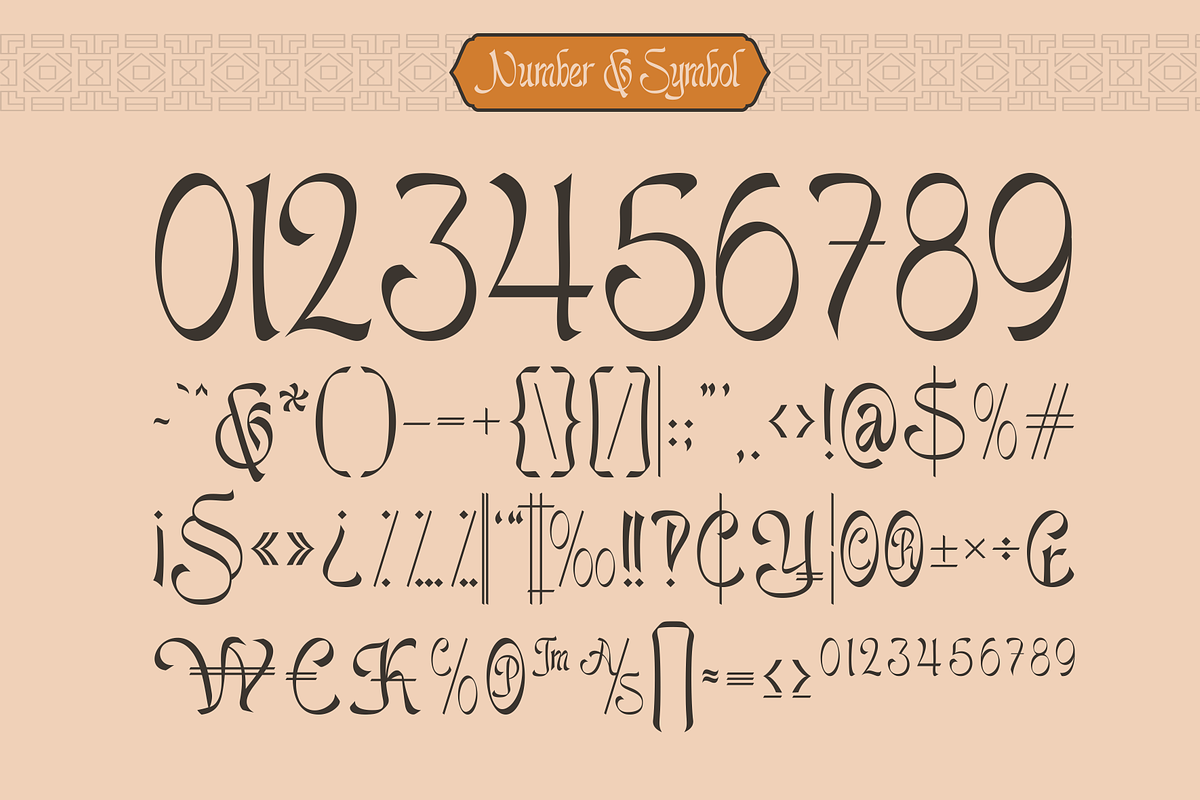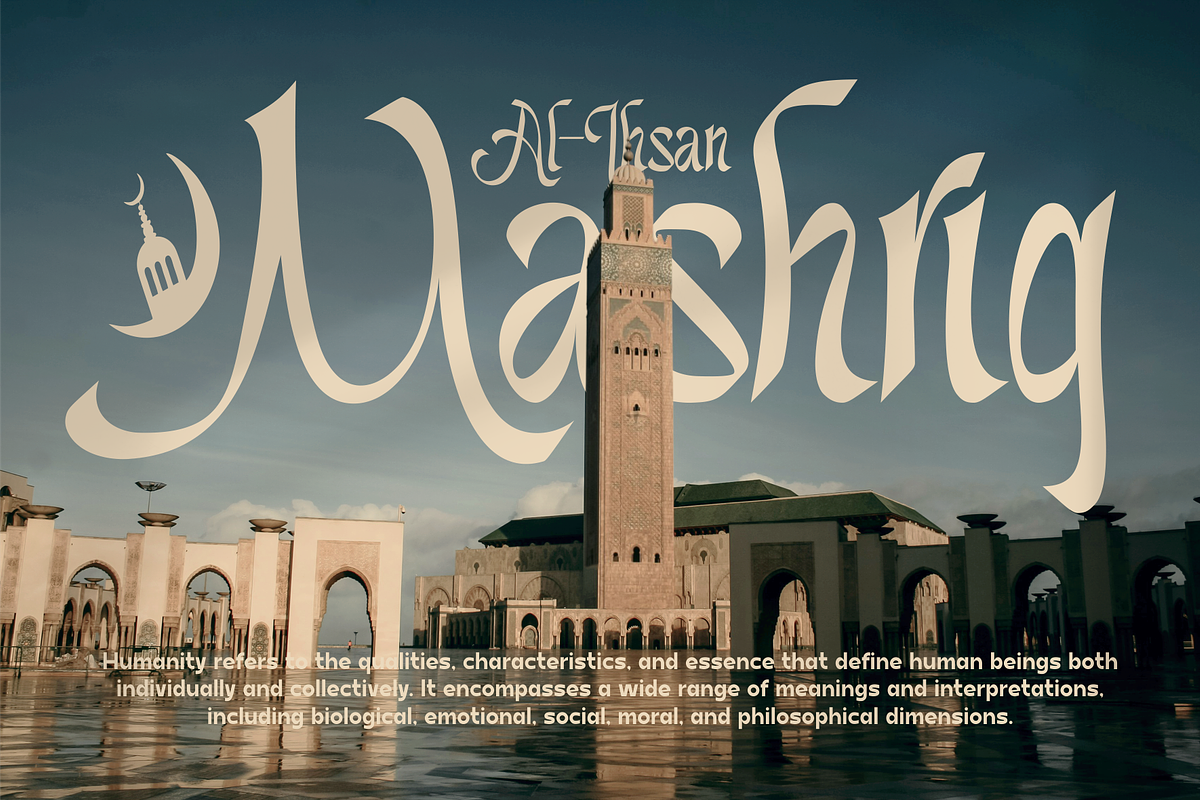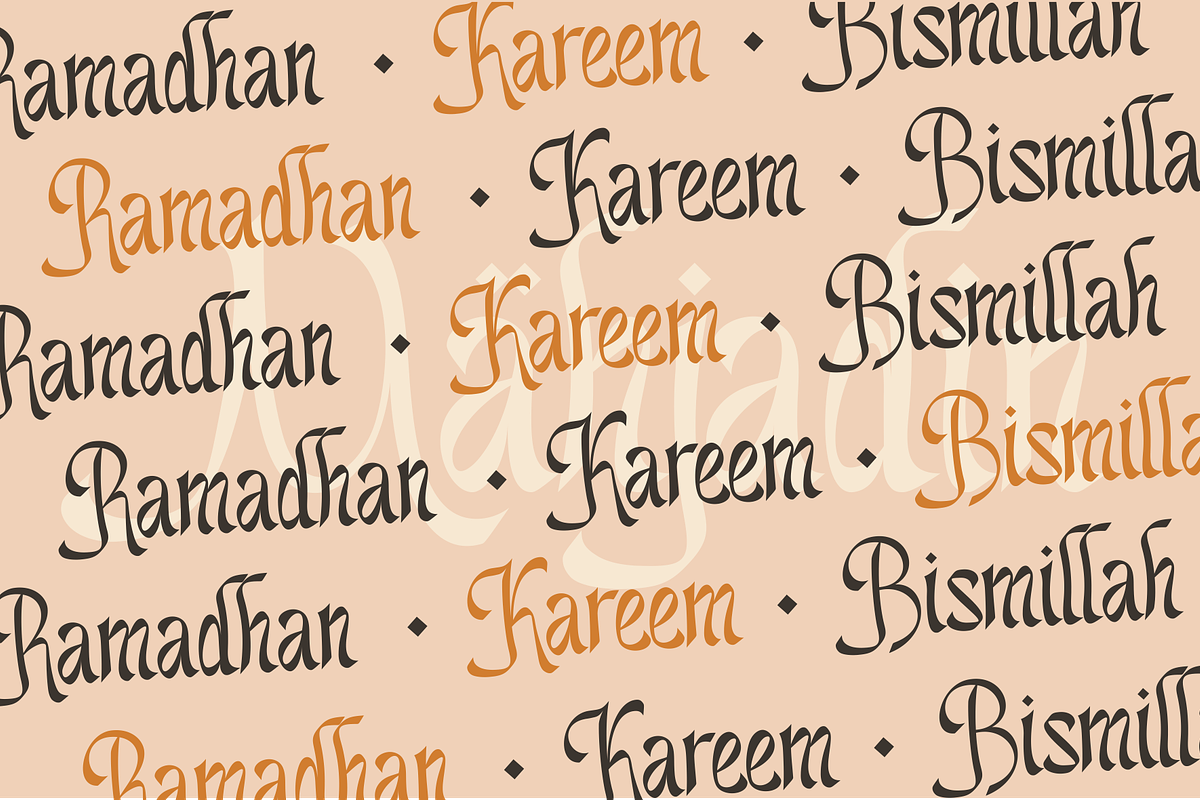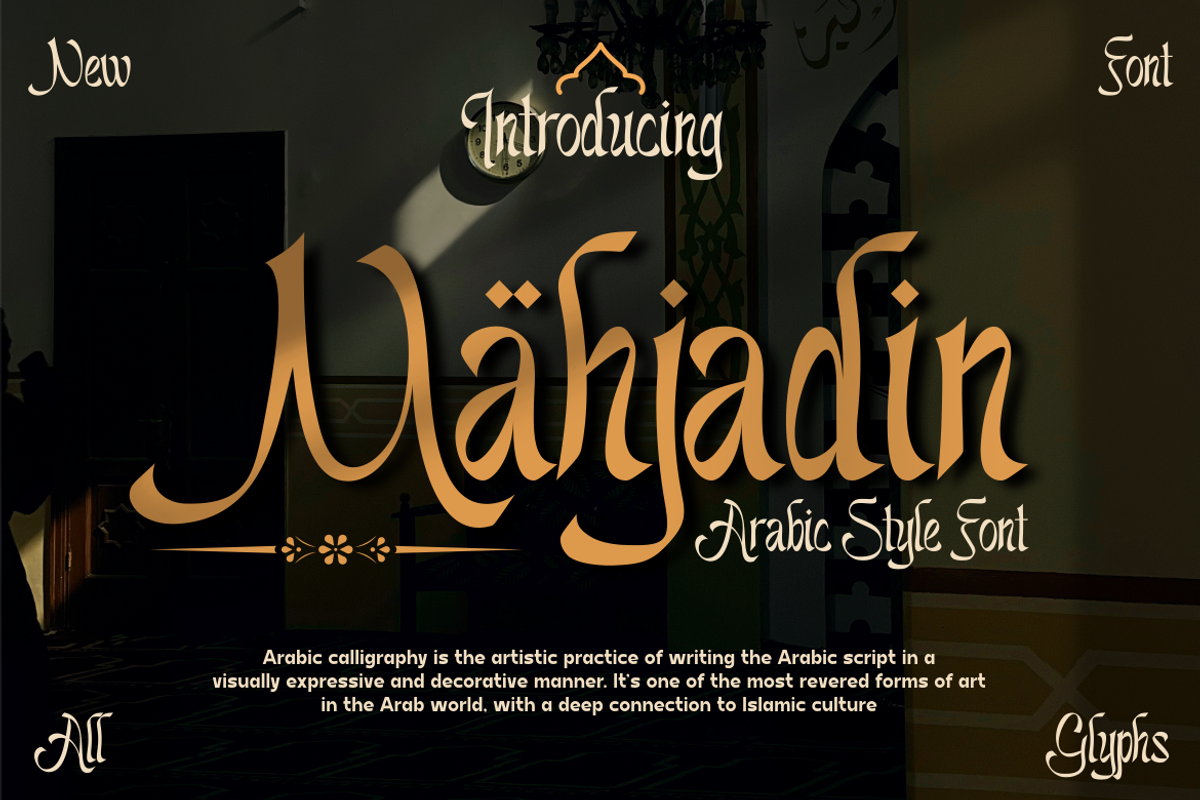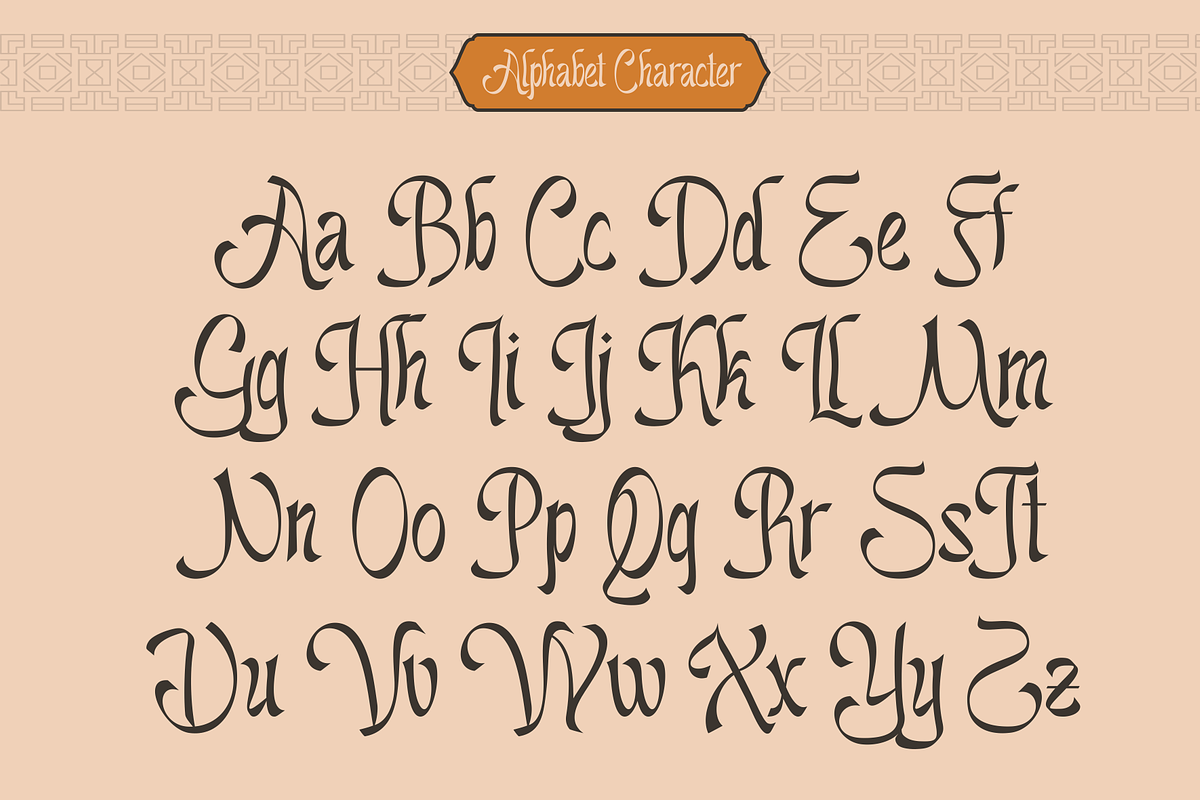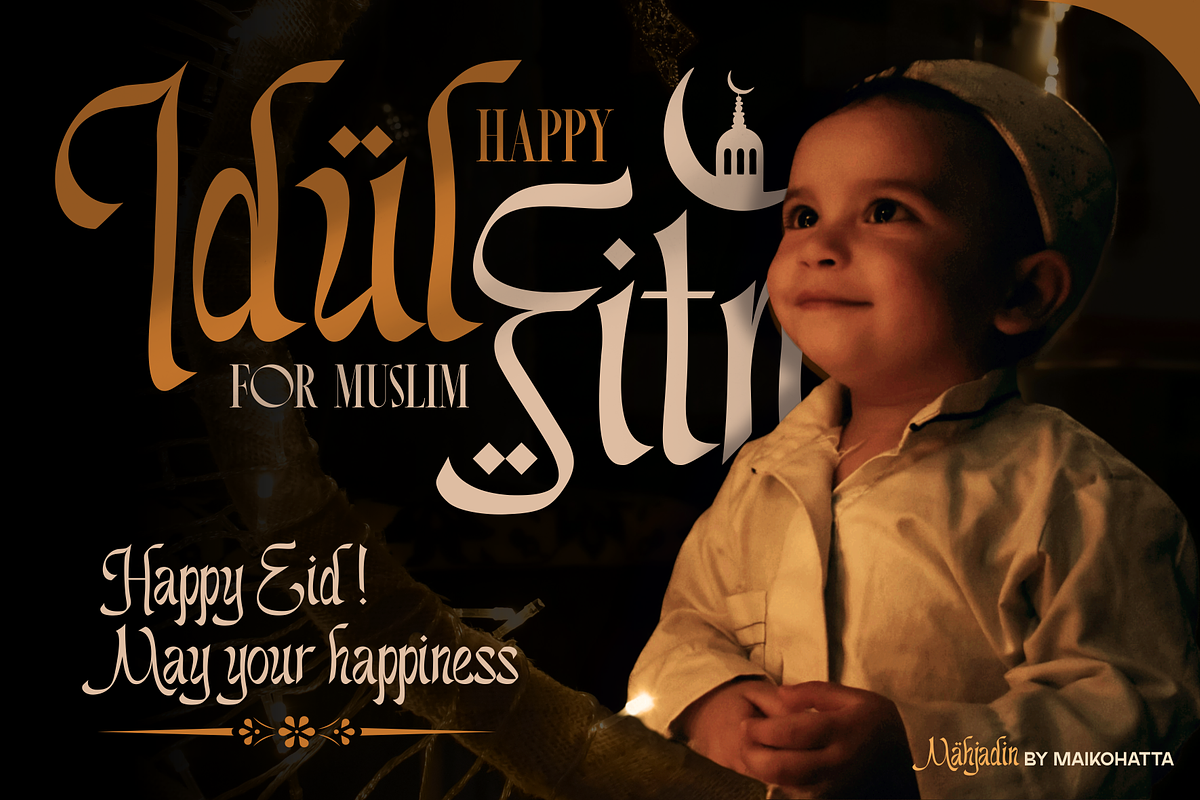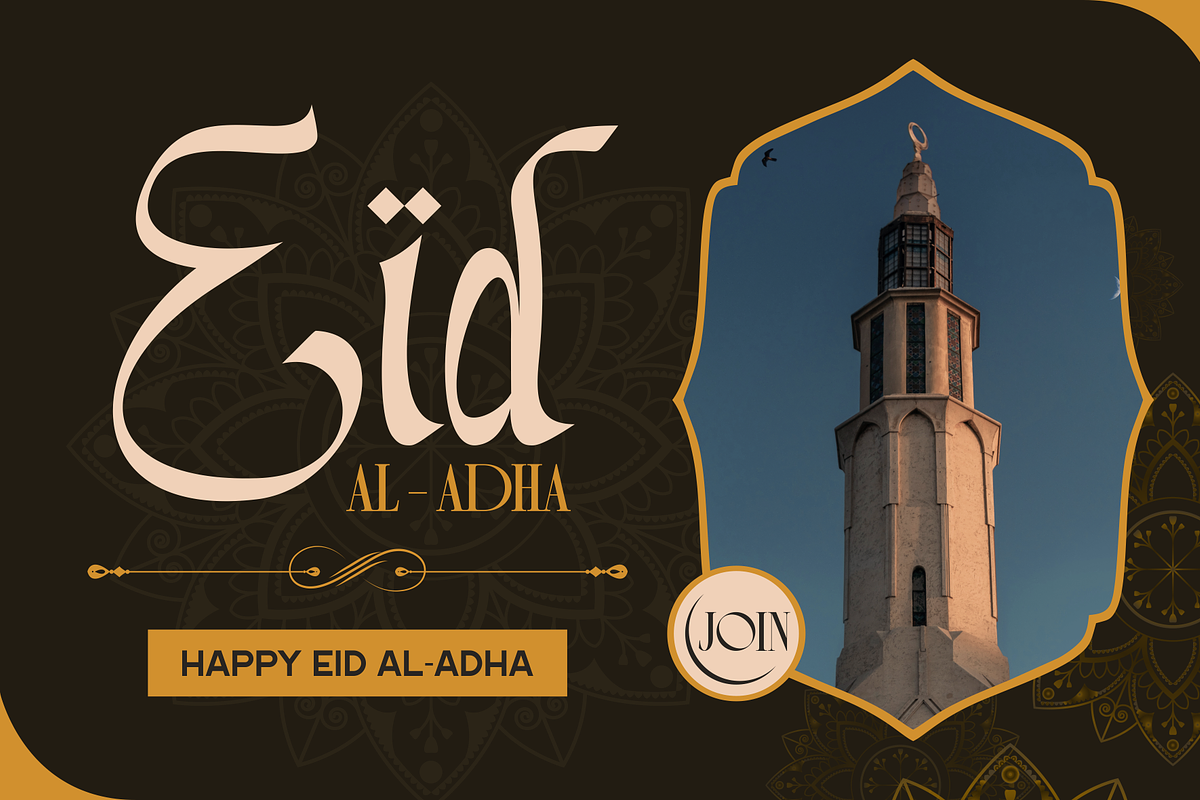
Mahjadin - Arabic Style Font
Mahjadin - Arabic Style Font is a bold and authentic display font. The font is suitable for any branding project like logo, Template Design, esport, and many more. outstanding in a wide range of contexts.